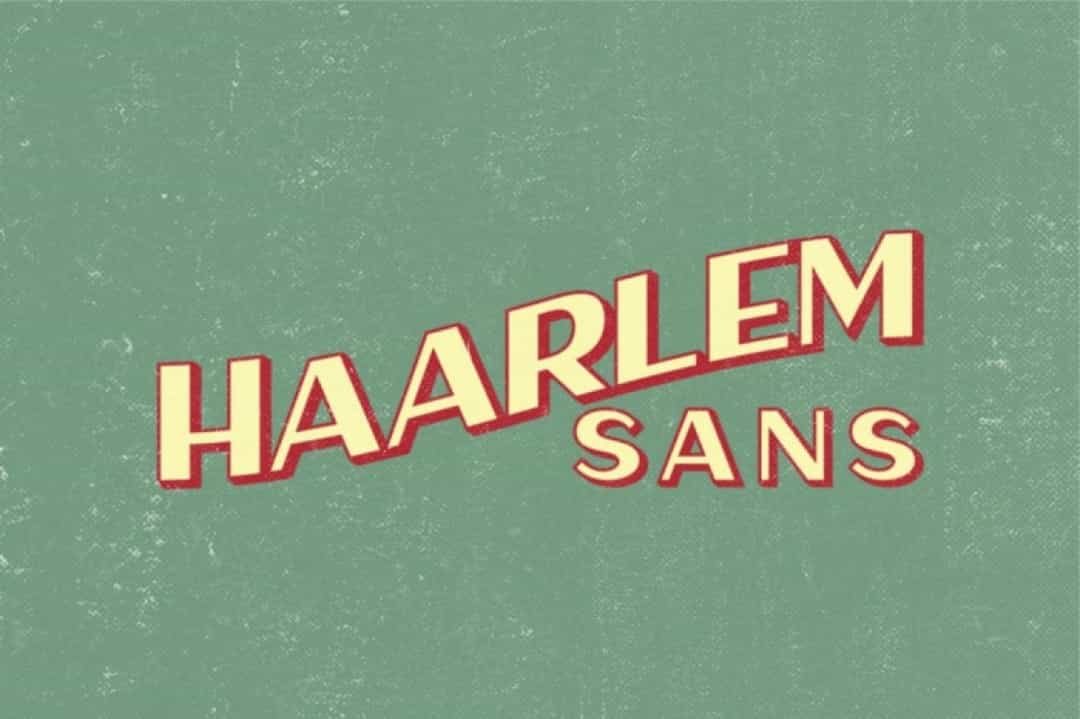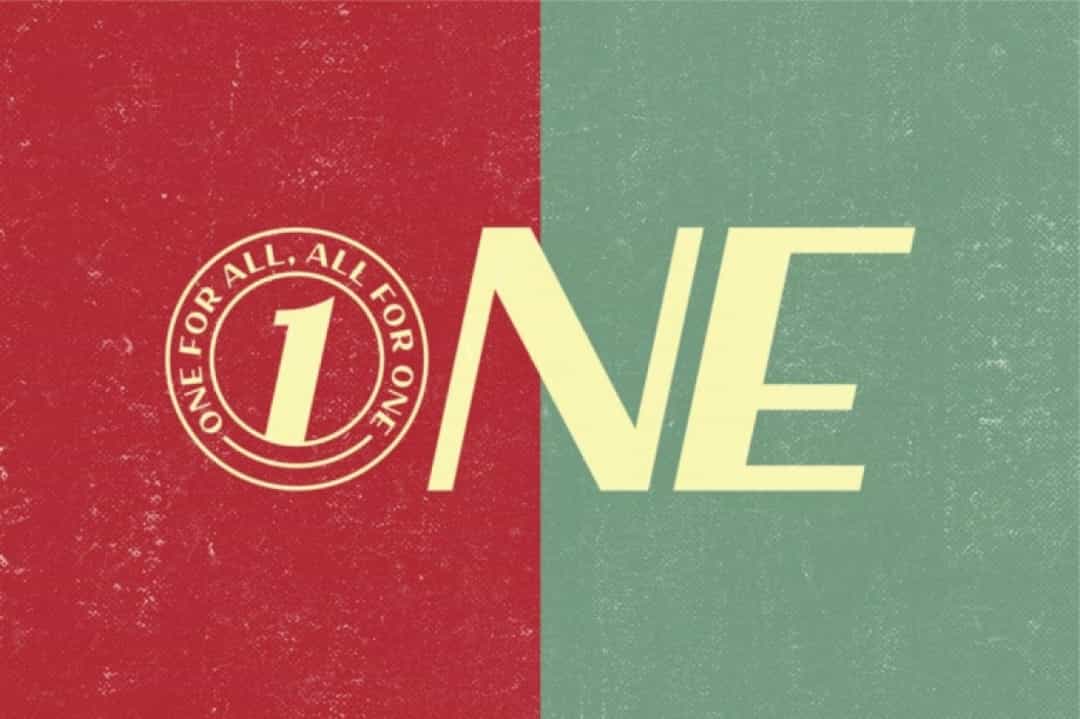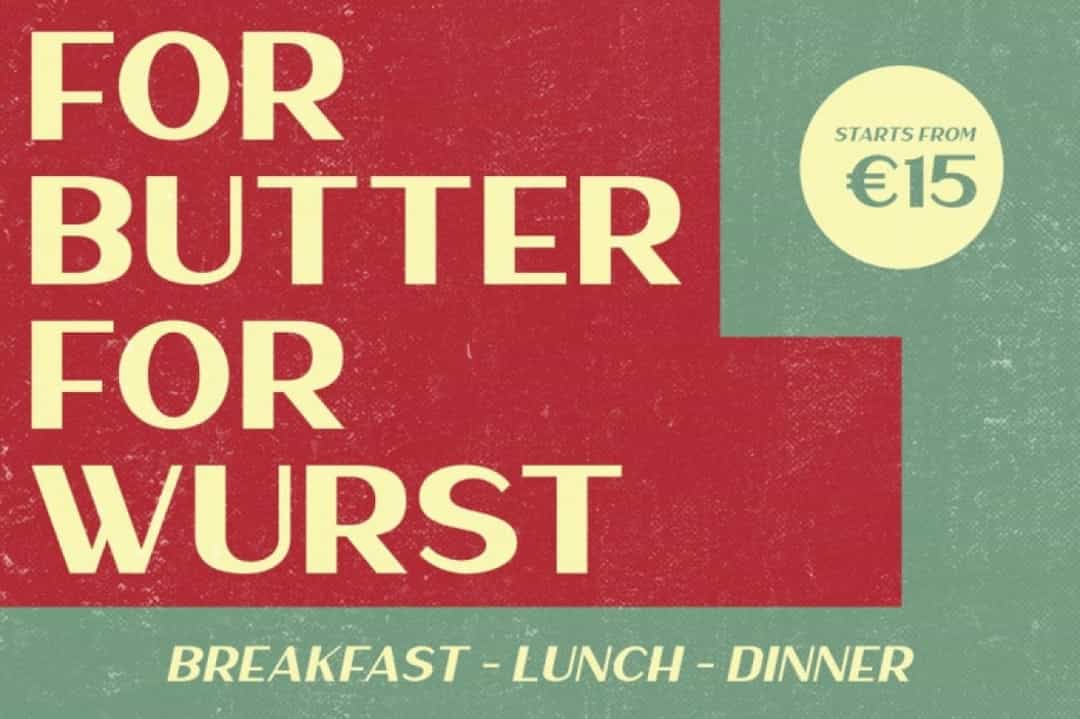
Haarlem Sans is a broad sans serif font with classical and art deco influences, inspired by Haarlem in the Netherlands and its unique ambience and ambience, including classic letters found in old advertisements (product packaging posters packaging etc).